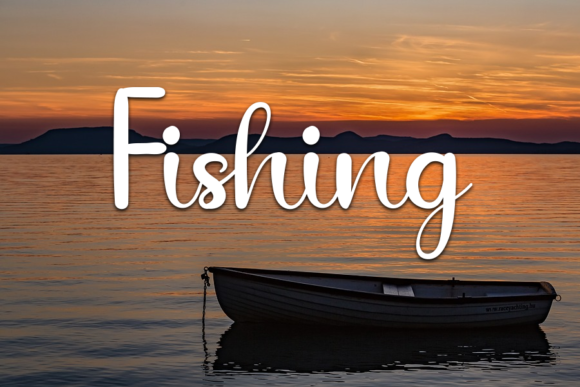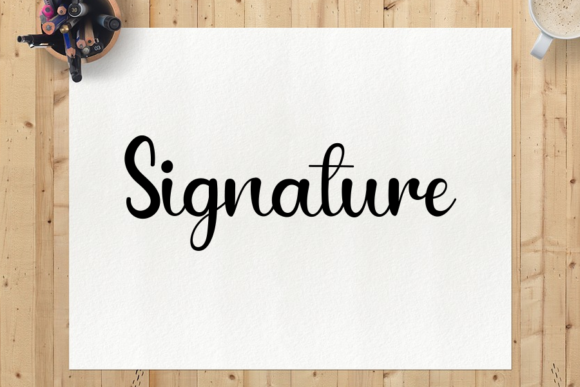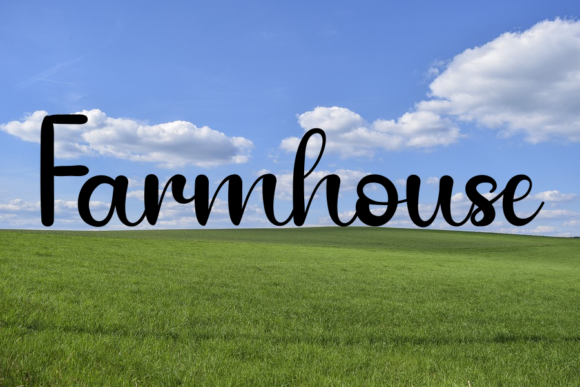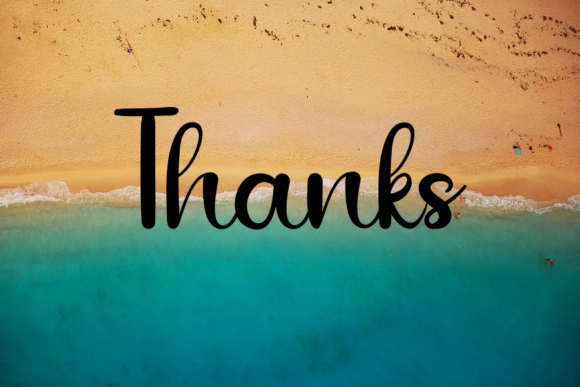
Spooky Font
About Spooky Font
Spooky is a simple, quirky, and adaptable handwritten font. Its informal style and casual vibe will make this font a go-to choice for each of the creations that require a relaxed touch.